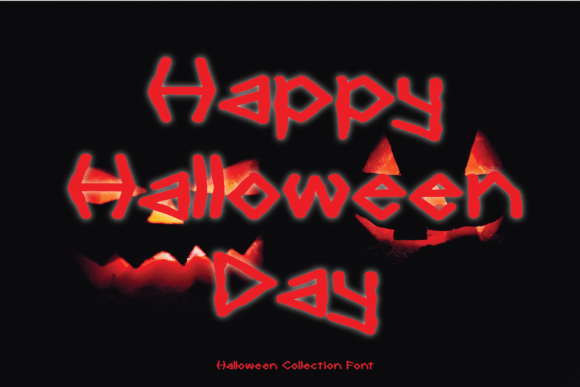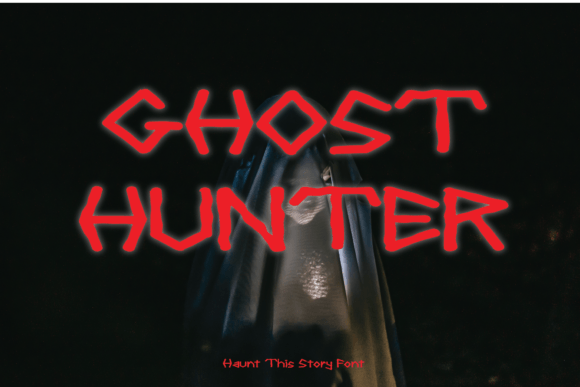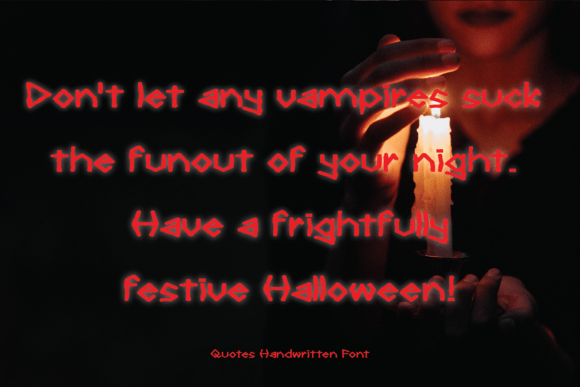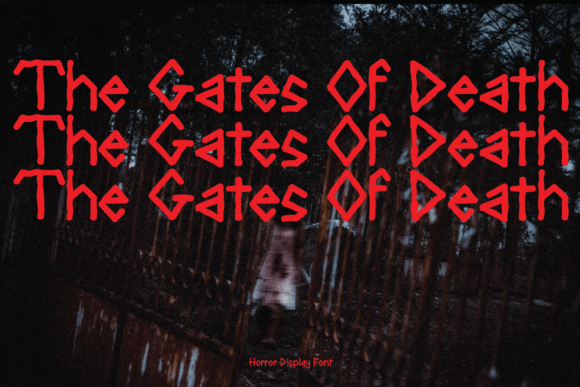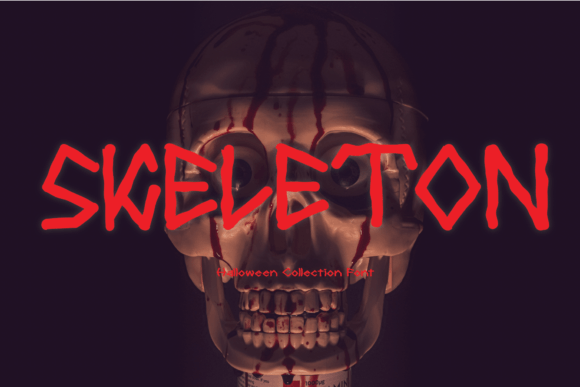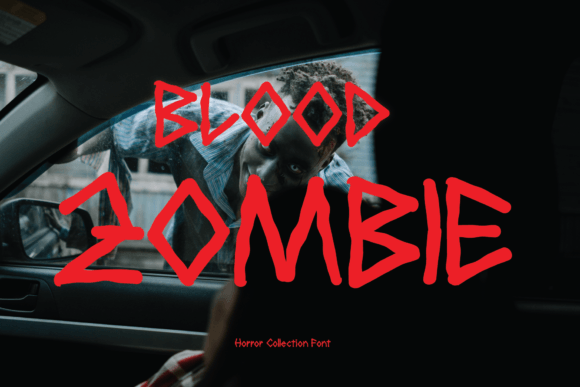
Introduction to Hellow Spooky Font
Hellow Spooky is a simple display font with a Halloween twist.
Looks stunning on greeting cards, business cards, logos, product packaging, advertisements, quotes, and other designs that require a spooky, horror look .